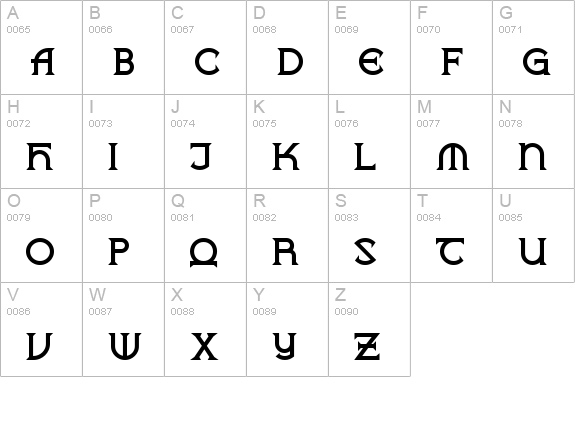
Vlaanderen Chiseled NF is a beautiful and versatile font that exudes elegance and sophistication. Its sharp edges and intricate details give it a unique and chiseled appearance, making it perfect for a wide range of design projects. Whether you're designing a logo, creating a poster, or working on a branding project, Vlaanderen Chiseled NF is sure to make a statement. What's even better is that this stunning font is available for free! You can easily download Vlaanderen Chiseled NF at FontsMarket.com and start using it in your projects right away. Don't miss out on the opportunity to add this exquisite font to your collection today!